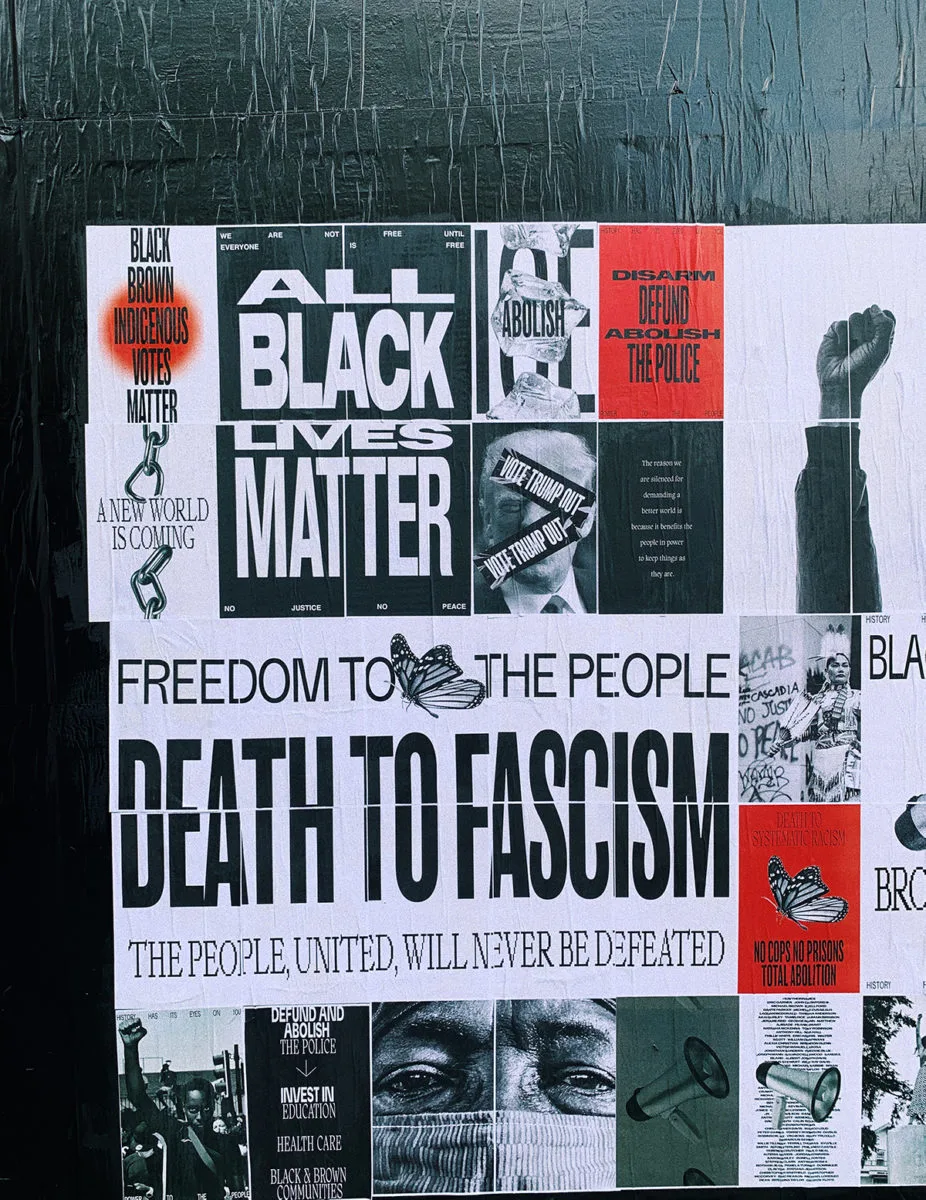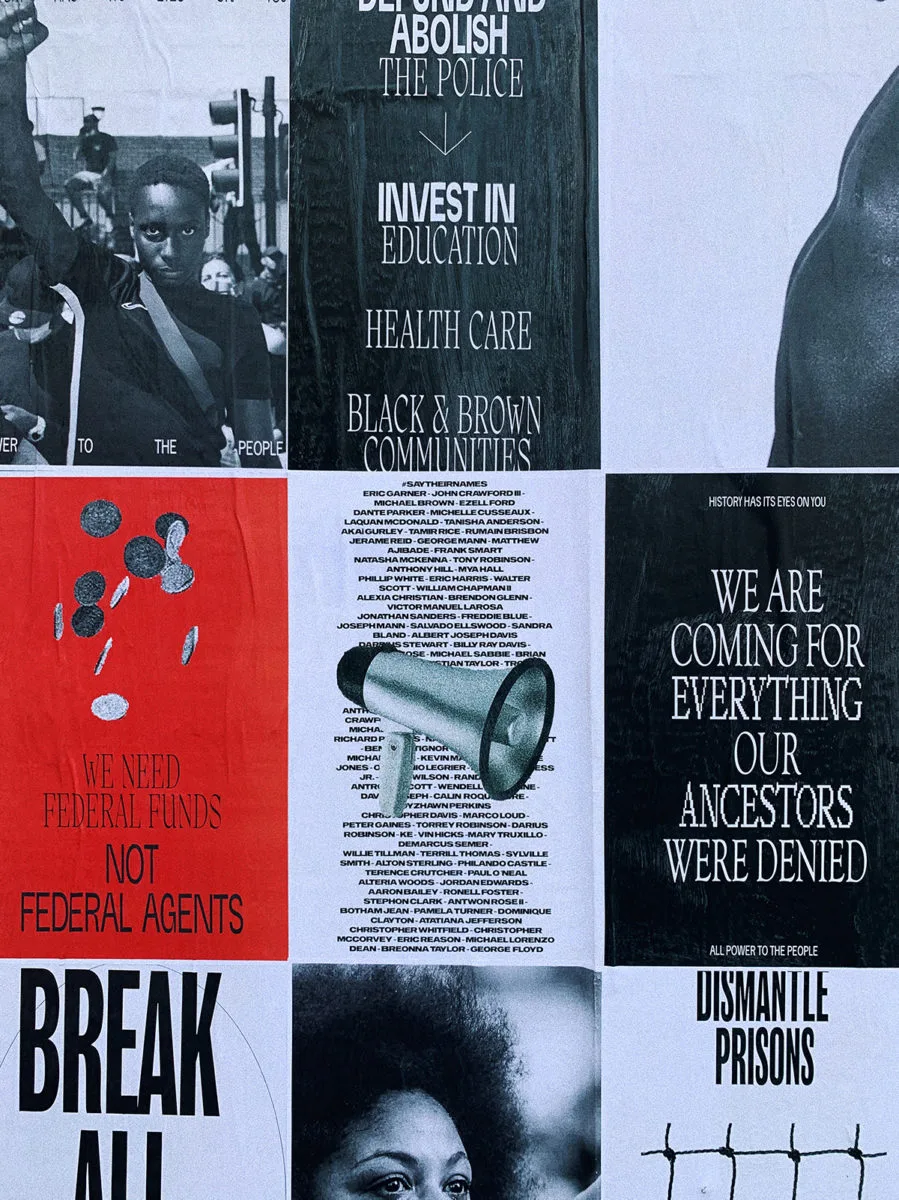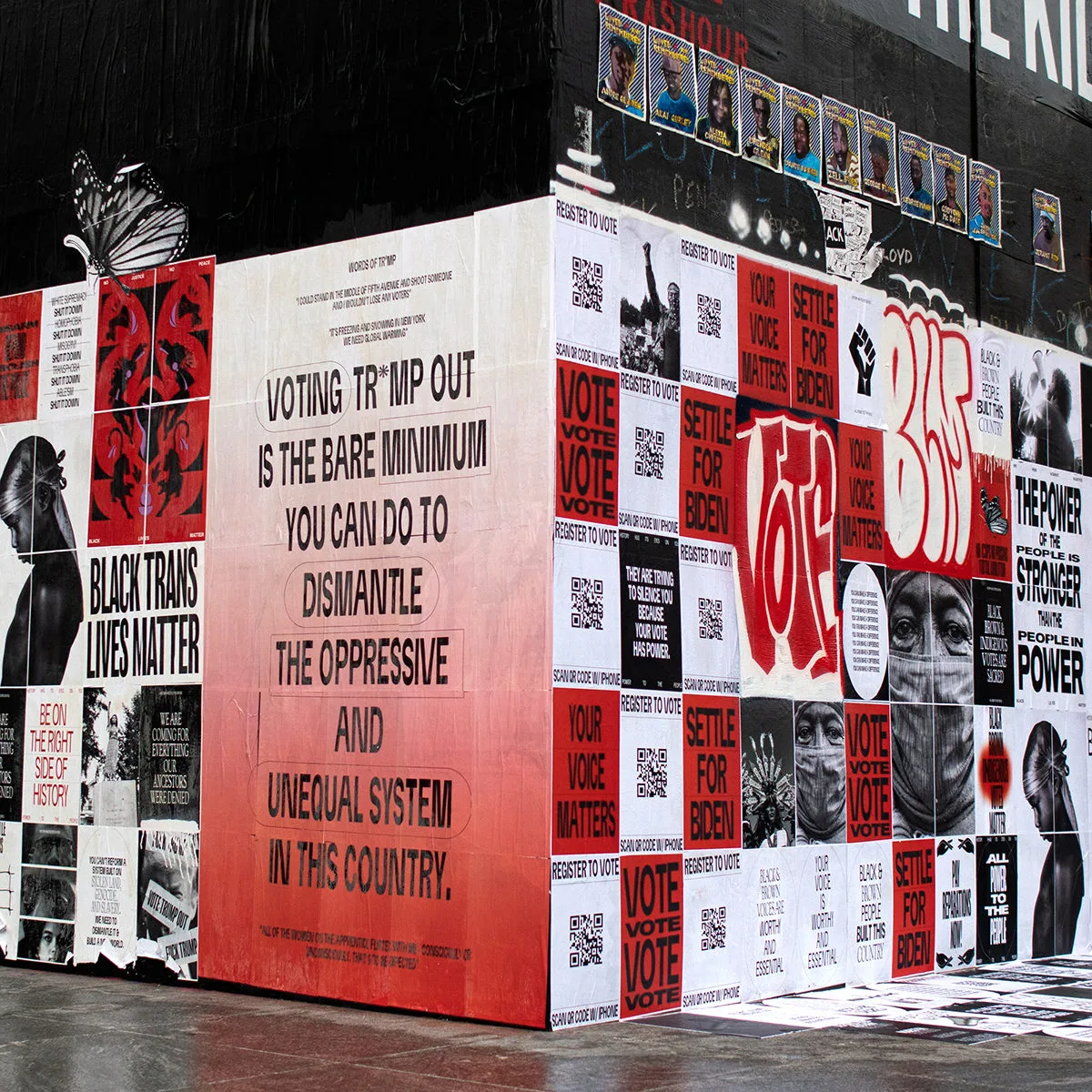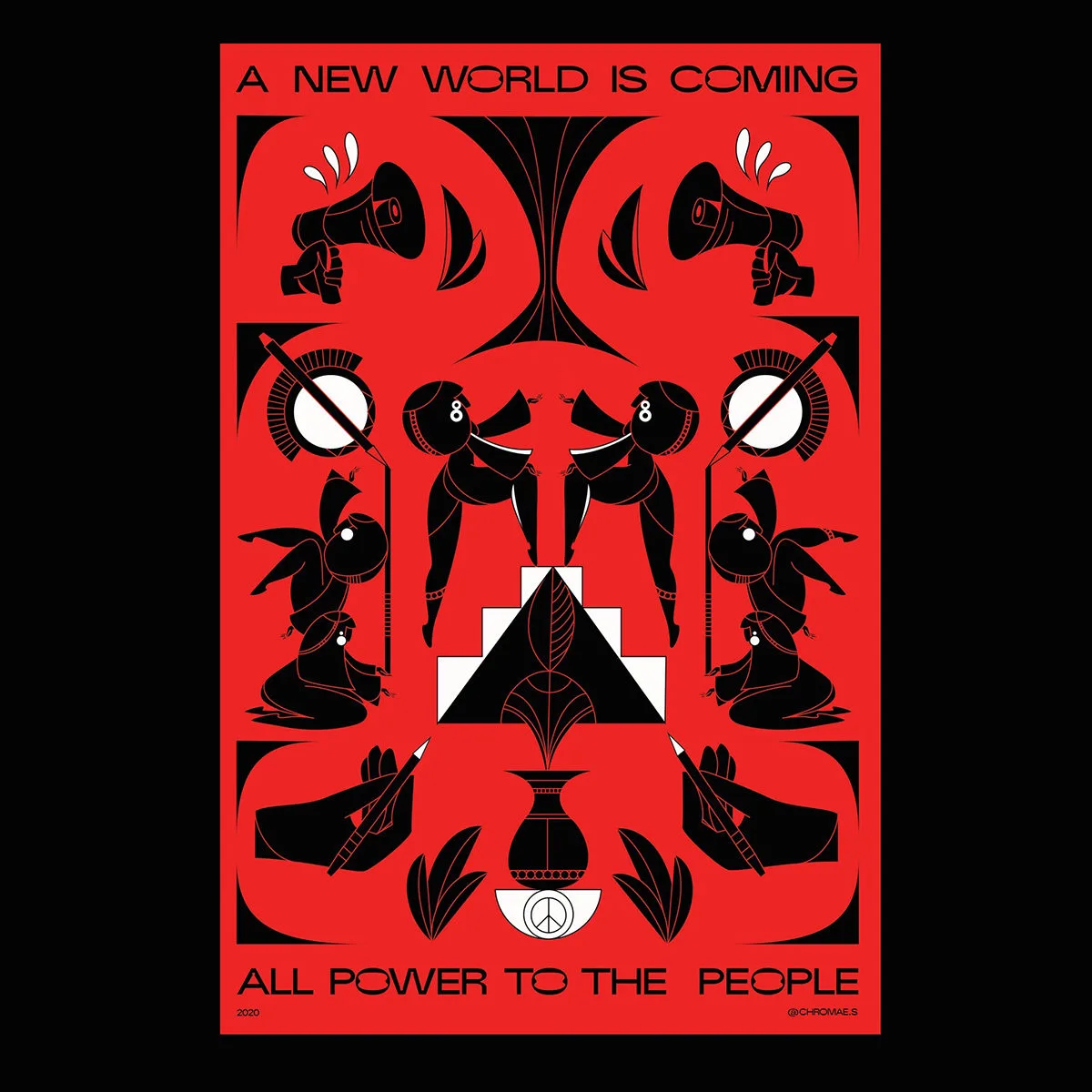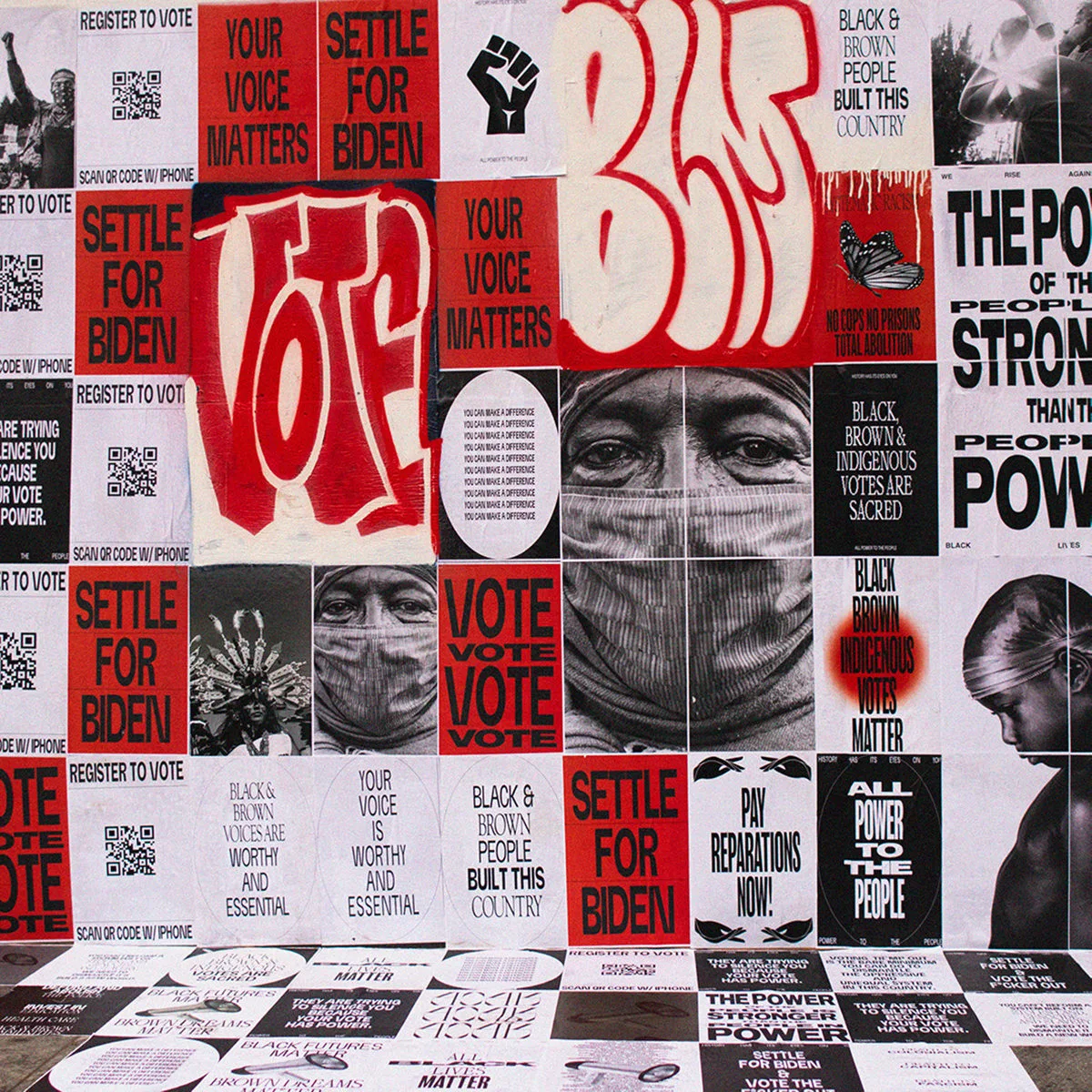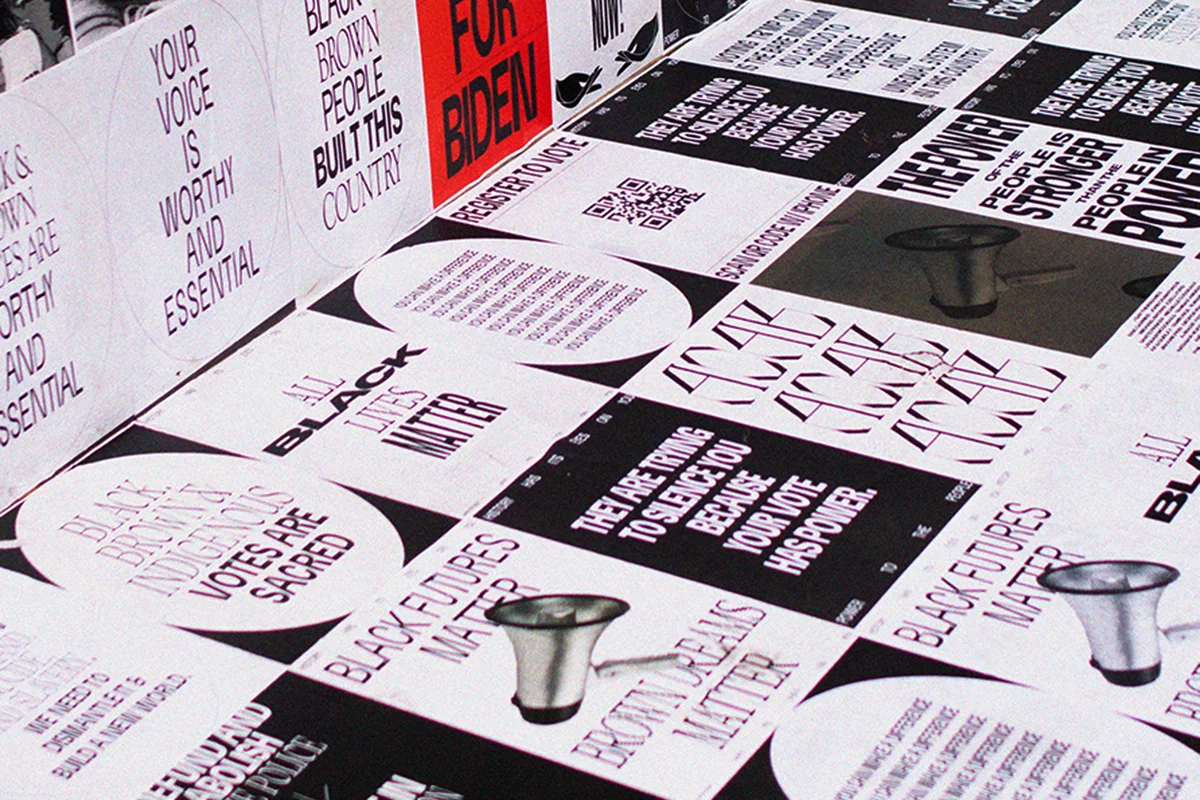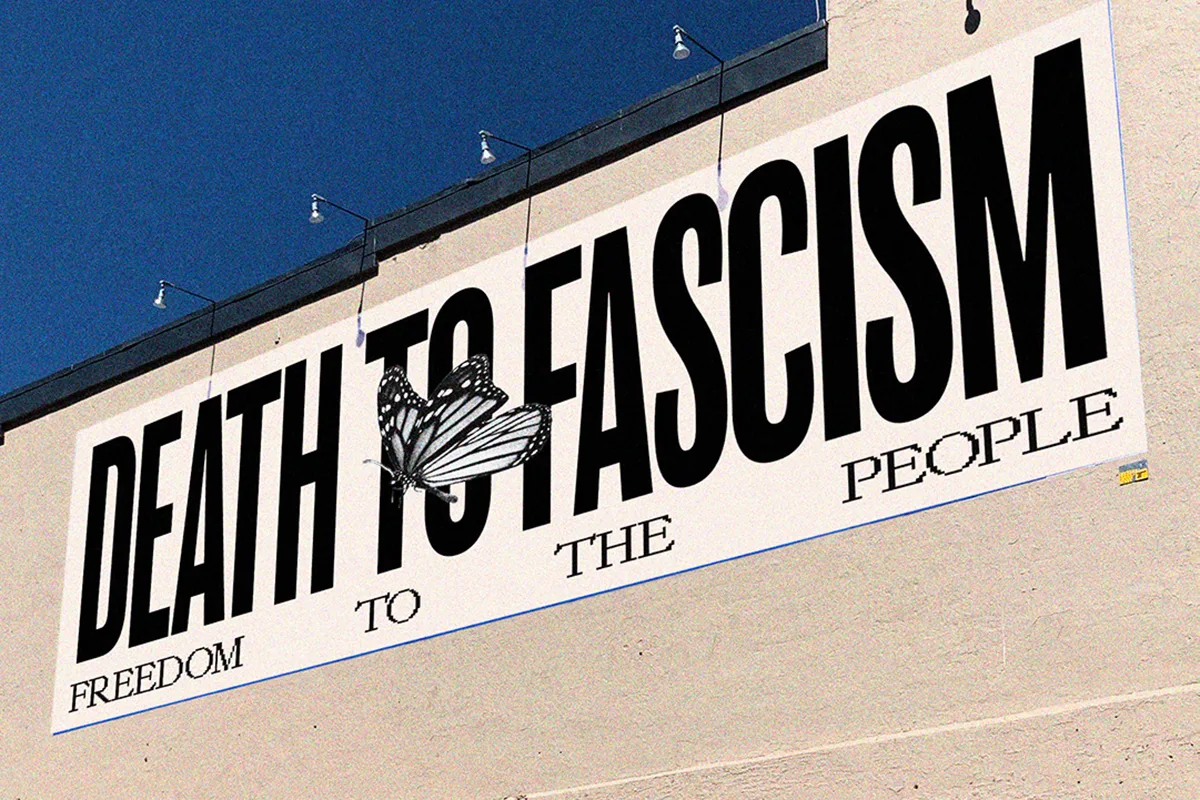
Salomée Souag (@chromae.s) — or Chroma, as her artist name goes — uses her practice to share crucial messages on social, environmental and racial justice. Pertinent, poignant and vital, Salomée’s large-scale wheat pasted murals have been lining Portland’s streets with urgency; aiming to connect and lift the voices of BIPOC communities and to promote radical change… We spoke with the artist to learn more about her recent projects, using street art to evoke energy, empathy and change, and beyond.
Firstly, can you introduce yourself in your own words and tell us a bit about your work/aesthetics/aims and ethos? How did you get to where you are today?
My name is Salomée, pronounced Sal-o-may, and my artist name is Chroma. My roots are Peruvian and Algerian. My first language is French. My home country is Switzerland. I’m a multi-layered woman, an immigrant, an artist, a fighter, a survivor, and I am here to take up space. I am a designer, artist, muralist and whatever else I want to be. I don’t want to identify with only one title, that is thinking too small. I want to work on everything as a creative and use my perspective on all mediums.
I started in design and worked in many creative studios but it never felt quite right; I realised I could not have a desk job and work a 9-5. Advertising goes against a lot of what I stand for, it’s part of the same corrupt system we need to dismantle. As an immigrant and woman of colour it’s hard to take that leap of faith and believe in your dream, to believe in yourself. I carry the suffering of my ancestors and proudly realise the dreams they could never achieve… But I chose my passion over a stable and put together future. I chose to do what I love and this is only the beginning.
Now, I work on community murals to connect with the BIPOC youth and show them that their voices are worthy and essential. I also focus on art for the revolution, I put my heart and soul into everything I touch — they all matter equally, they all have one thing in common; to take up space unapologetically through the lens of social justice, racial justice, environmental justice.
Can you give an overview of the process of creating your Portland Black Lives Matter mural?
After the death of George Floyd, a lot of windows were broken at pioneer square in the centre of Portland due to the protests. We had many boarded up windows and artists saw this as an opportunity to tell a story. I think its beautiful… we created magic from the damage. A lot of street artists started to add pieces and I noticed that there were almost no woman artists there. So, I decided to grab whatever paint I had left over and add my piece to this living and breathing vigil. It wasn’t legal but no one messed with me when I was painting. A lot of people brought their kids to show them visually what was happening in the world right now; to educate them. So many people walked that street when I was painting down there, I took the energy of the people with me in every brush stroke… This space became a way for people to educate each other, morn the lives lost, celebrate and honour the lives lost to police brutality or white supremacy. It was a safe space to see revolutionary art.
What role can design play in social and political change/movements in your opinion? And what do you think/hope it may be able to do in future?
I create to evoke any feeling, it can be a bad reaction or a good reaction. All I want is some type of reaction. Our world is so numb to pain, numb to feelings. That’s when we start to lose our humanity. My job as a creative is to make people feel empathy, to see themselves in the story I am telling through messaging, photography and bold design elements. I do hope to always inspire; inspire others to create more, to wake people out of their comfort zone and remind them it’s on us to do the work… inspire to change our normal. I want to elevate Black voices and experiences in a way that honours these stories, these everyday heroes… But I also want to make people who are staying silent understand that they are the problem but also the solution. We all need each other now more than ever.
You commented on your Instagram post for the mural, ‘The city is a canvas, it’s an exhibition of its own. No need for galleries, this is the future’ — how did you begin working with wheat pasting in cities + what led you there? What do you feel is beneficial about working like this?
I started for many reasons. I started when they started to call us anarchists for using graffiti to express ourselves. I wanted to show that street art can be beautiful and should be respected. I think even a small tag and messaging that takes two seconds is as worthy as a mural that takes a week. I also aim to uplift marginalised voices and elevate their stories, while at the same time making it impossible for anyone to move on and go back to normal. This is a revolution and not just a moment.
As someone who wasn’t able to go to many art galleries and shows, I think free public art is crucial and is the future for younger generations. The art also interacts with its surroundings and you have to learn to detach yourself and let it take on its own narrative — even if people rip it apart of write over it, the world needs to see that and the way the city interacts with it, the way people respond. It’s a protest of its own.
For the murals, you seem to mainly use bold sans fonts. Can you tell us a bit about the type selections/treatments?
Art for the revolution needs to be unapologetic and bold, it needs to scream in your face but also be informative and focus on making sure people take this message with them and want to share it to educate. I also like to play with very formal fonts to break the boundaries of what you would assume street art to be, to show it can be effective, impactful, and change perspectives. I also want to show diversity, when you talk about a revolution you have to bring in all the perspectives and types of oppression, you have to bring in different identities and personalities, that should be shown in the typography.
This is our fight for justice, for equality, for black and brown liberation
Growing up, we didn’t see us as the people who inspired.
Erase racist views.
War in itself, telling our stories.
We have to make our own narrative.
We have to be the inspiration, the pioneers, and creators.
Change culture.
This is an expression against oppression.
We have so many more stories to tell,
We are the future.
We are the hope.
We are the culture.
This is the real Portland.